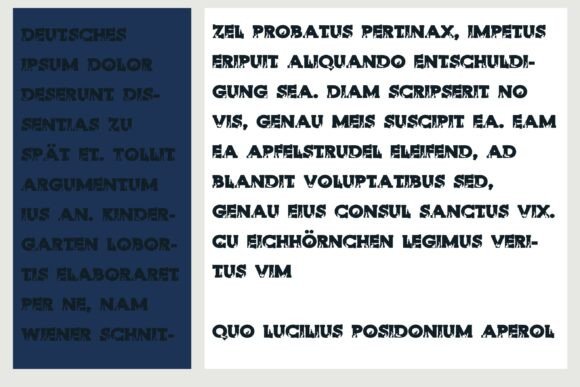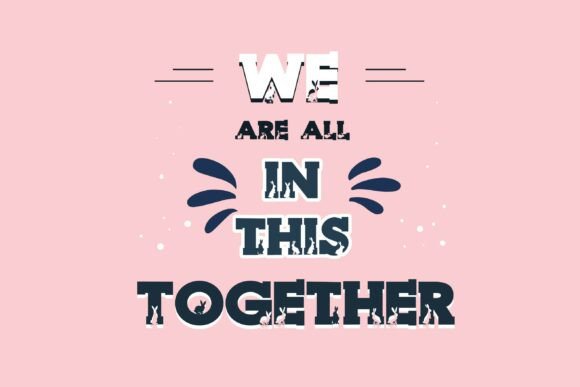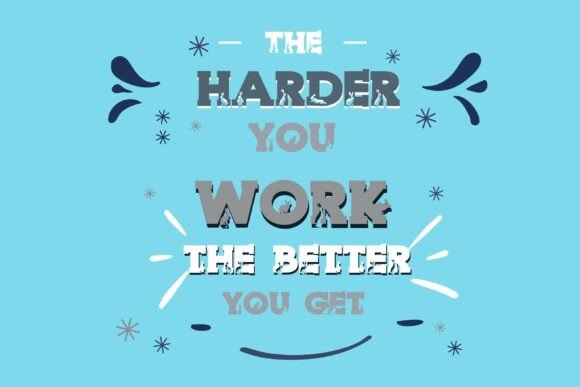
Bunny Shadow Font
This hand-crafted font is a whimsical serif with bunny silhouettes.A hand-crafted font is a font that is designed to look like it was written by hand. It is often used for invitations, greeting cards, and other items. Handwritten fonts can be either formal or informal, and they can be used for a variety of purposes.